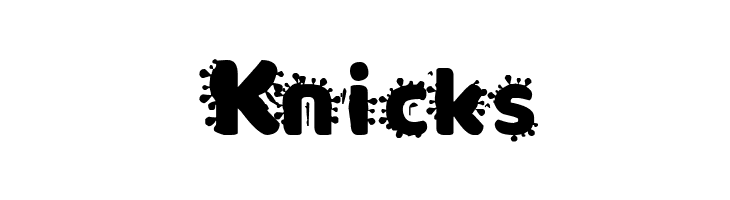
A bold, playful font with spiky, virus-like outlines around each character.
A bold, geometric font with a futuristic and modern design.
A decorative and elegant font with vintage flair, featuring intricate uppercase letters and bold numerals.
A decorative serif font with intricate swirls and classic elegance.
A decorative serif font with elegant, flowing uppercase and classic lowercase letters.
An ornate and elegant serif font with decorative uppercase letters.
An elegant script font with high contrast and flowing, cursive style.
A smooth, flowing script font with a handwritten style.
A bold, decorative font with a 3D shadow effect, perfect for impactful designs.